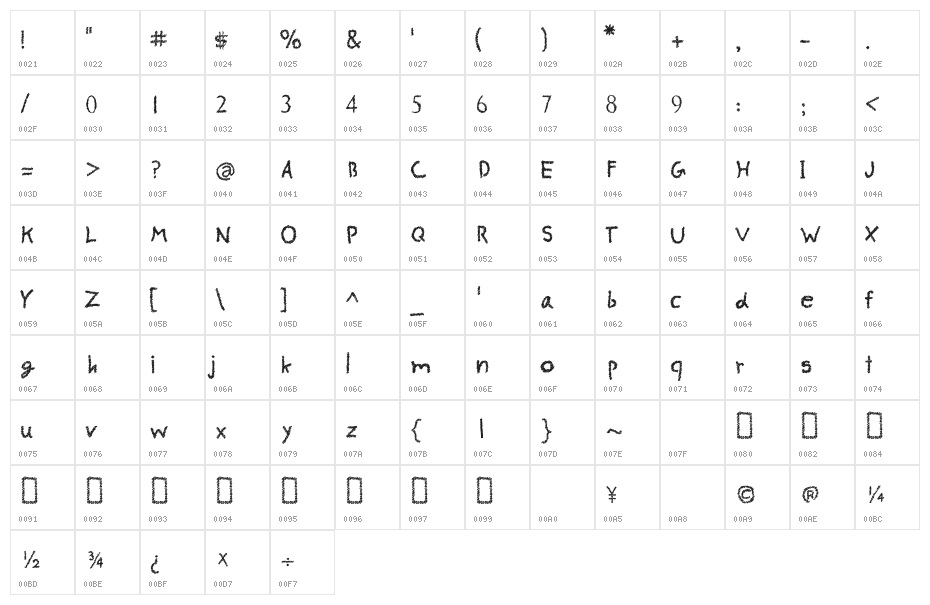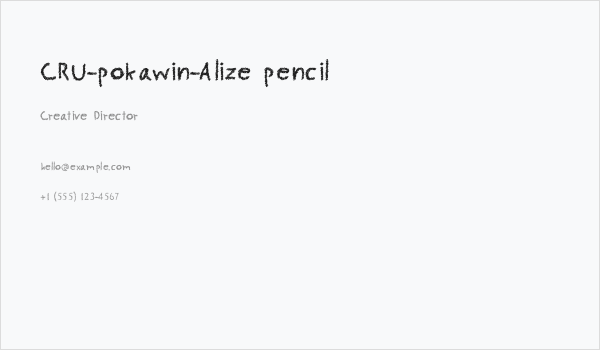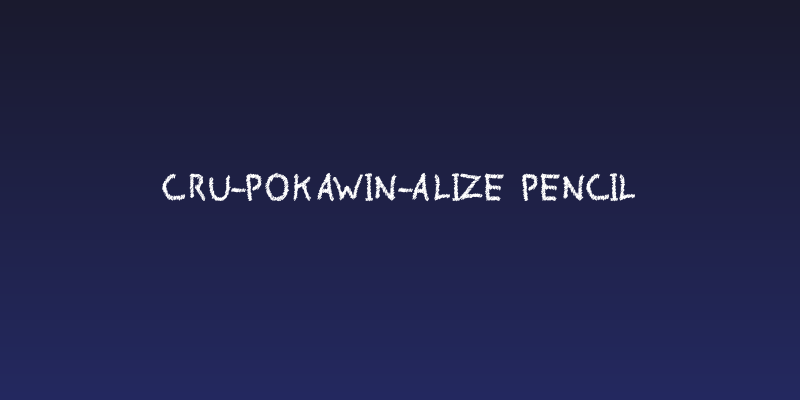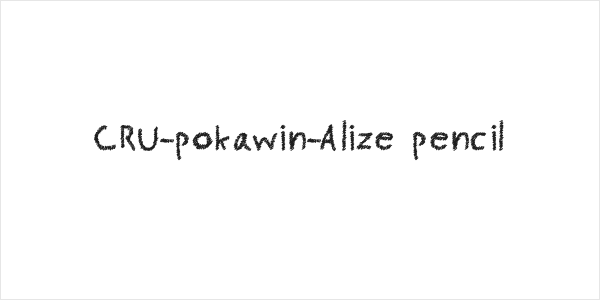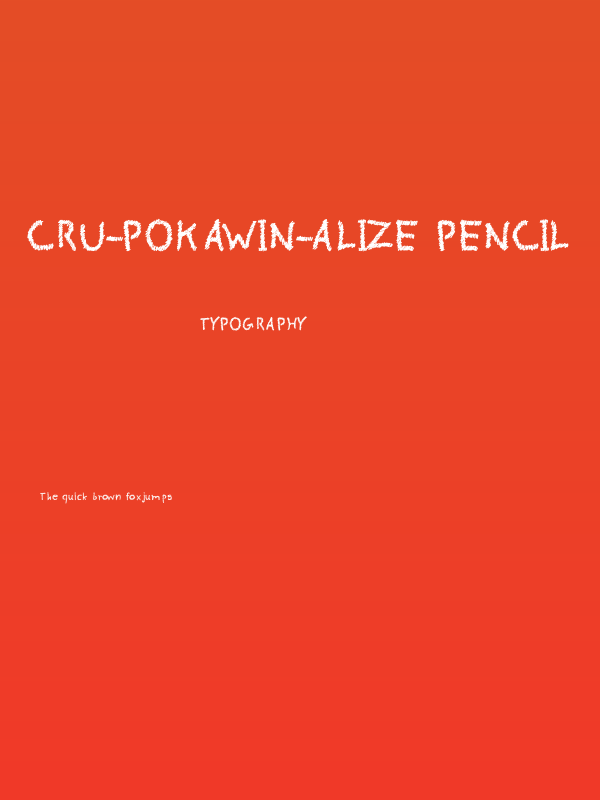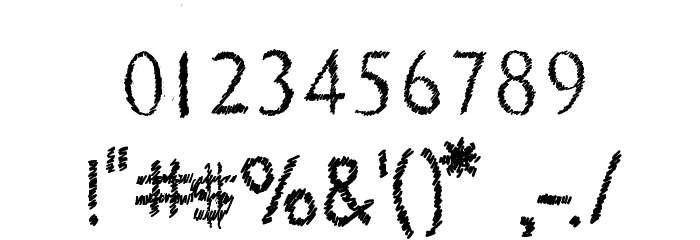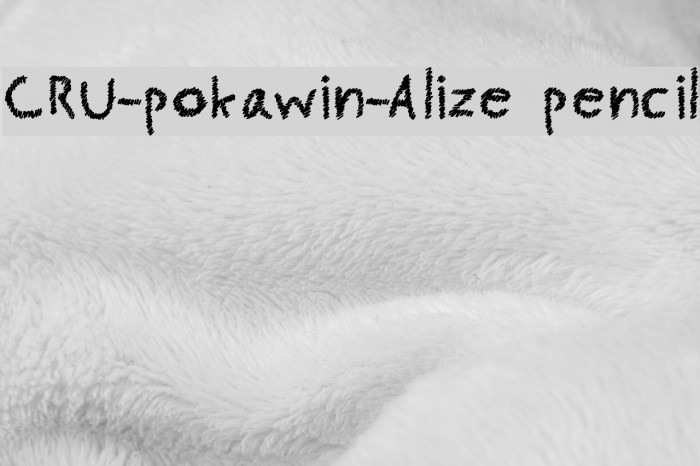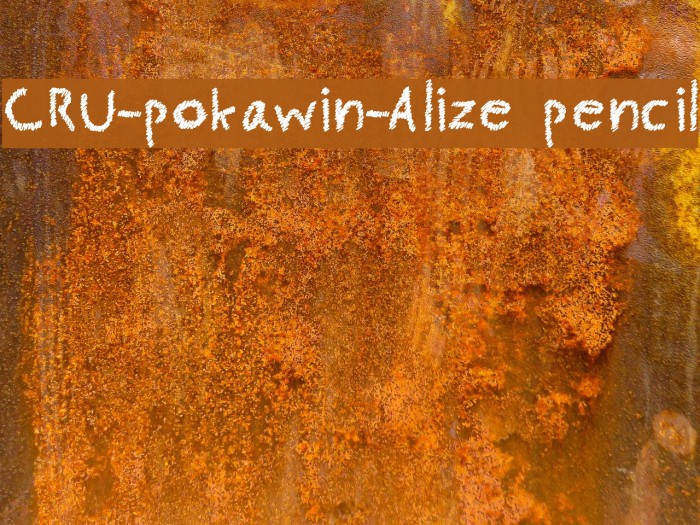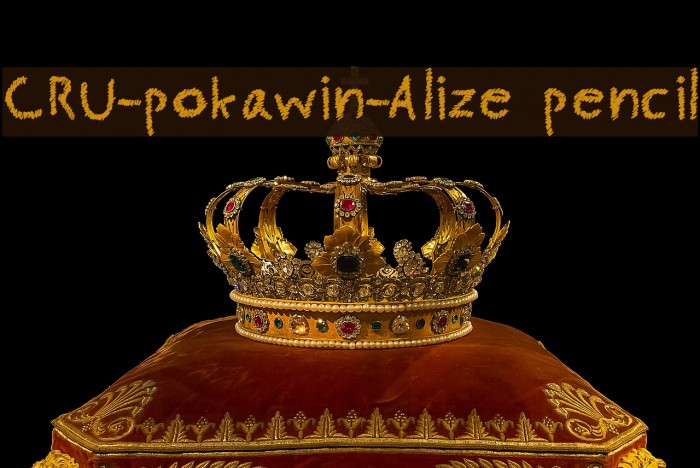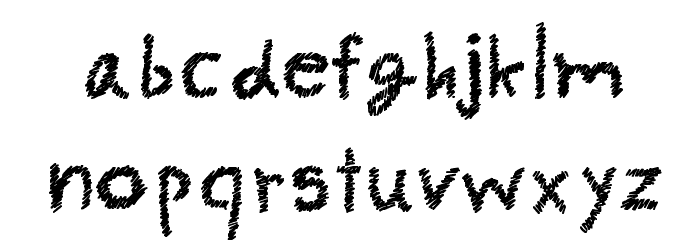
CRU-pokawin-Alize pencil Font
CRU-pokawin-Alize pencil Description
This font features a unique, hand-drawn style that mimics the texture and appearance of pencil strokes. The characters are crafted with a rough, sketch-like quality, giving them a dynamic and artistic feel. The uppercase and lowercase letters maintain a consistent style, with slightly irregular edges that enhance the hand-drawn effect. Numbers and special characters follow the same aesthetic, ensuring a cohesive look across all glyphs. This font is ideal for projects that require a personal, creative touch, such as invitations, posters, or artistic branding.
| Overall Style | Artistic |
| Use Case | Headlines, Creative projects, Artistic branding |
| Proposed Projects | Ideal for artistic projects, invitations, posters, and creative branding. |